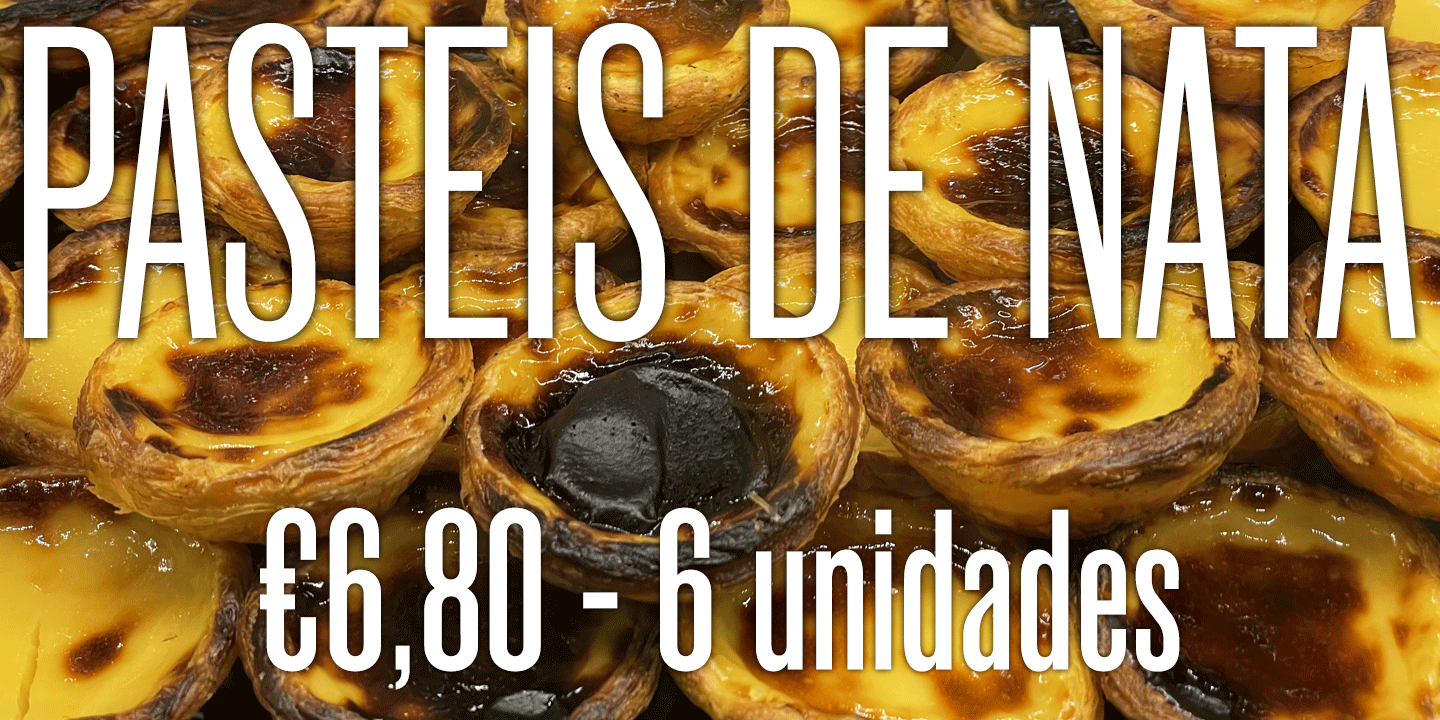
Poster Sans Font is an incredibly versatile typeface, perfectly suited for a vast array of design projects. Imagine it commanding attention on impactful advertising billboards, bringing a modern edge to event posters, or enhancing the visual appeal of website banners. Its clean and contemporary aesthetic also makes it ideal for packaging design, editorial layouts, social media graphics, and even app interfaces. Whether you're aiming for a bold statement or a sleek, minimalist look, Poster Sans Font offers the flexibility to elevate your designs and ensure your message stands out clearly and effectively.
What makes Poster Sans Font so exciting? It’s more than just a font; it’s a tool for impactful communication. Its robust and straightforward design ensures maximum readability and immediate visual recognition, which is crucial for modern digital and print media. Designers frequently praise its ability to combine professional credibility with an approachable feel, making it a go-to choice for projects that need to convey both authority and creativity. This font breathes life into headlines and calls to action, turning passive viewing into active engagement. It's the kind of typeface that makes your content pop and leaves a lasting impression, ensuring your message resonates with your audience.
The Poster Sans Font family typically offers a comprehensive range of weights and styles to meet diverse design requirements. You’ll often find variations like Poster Sans Thin, Poster Sans Light, Poster Sans Regular, Poster Sans Medium, Poster Sans SemiBold, and Poster Sans Bold. Some families might also include Poster Sans Black for extra impact, or specialized widths such as Poster Sans Condensed or Poster Sans Extended. This extensive range of options allows for seamless integration into various design hierarchies, enabling you to create visually consistent and highly effective typography across all your platforms. Discover the full potential of this exceptional typeface and see how it can transform your projects. After your initial Poster Sans Font Free Download, remember to secure the appropriate license for commercial applications to ensure proper usage.